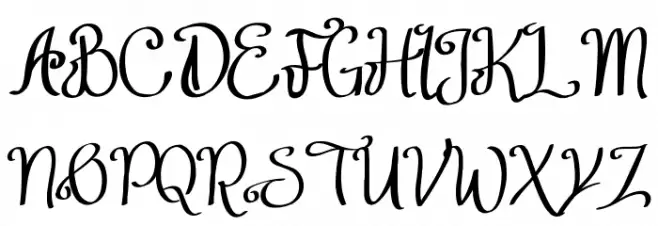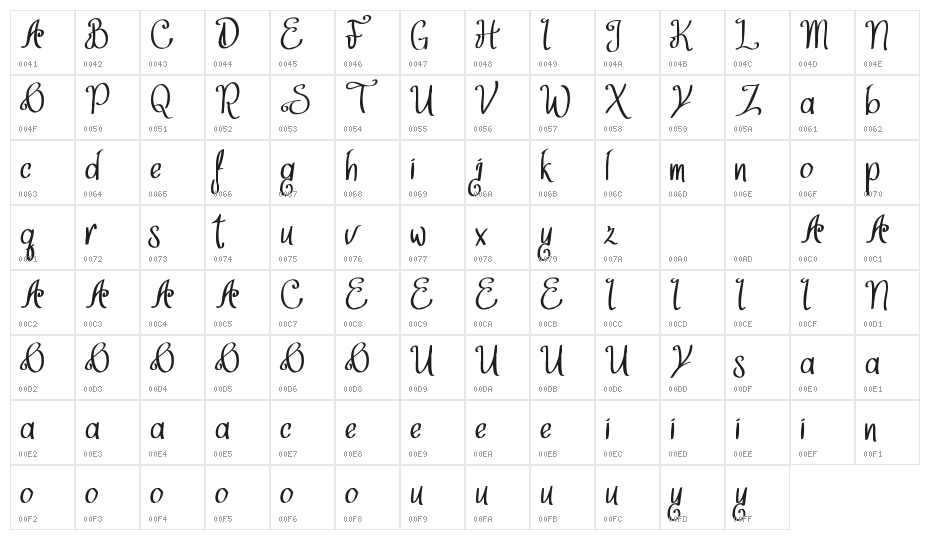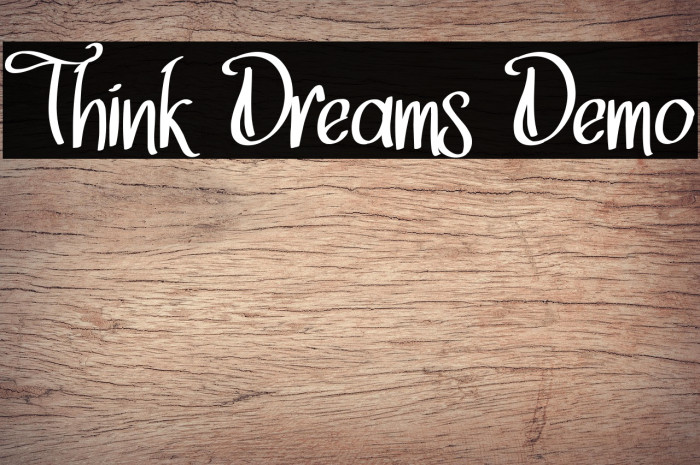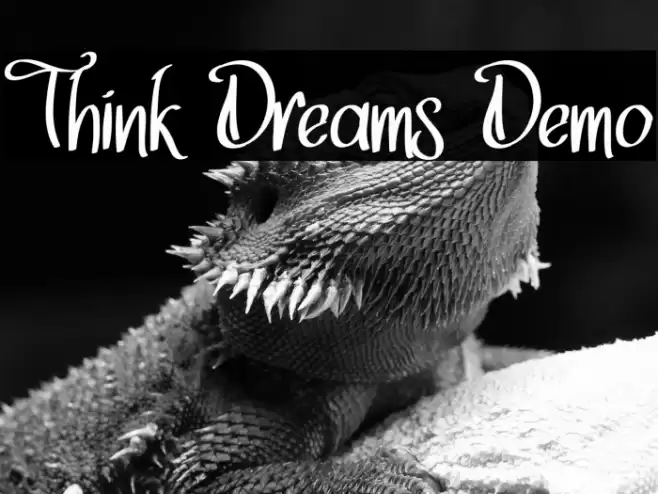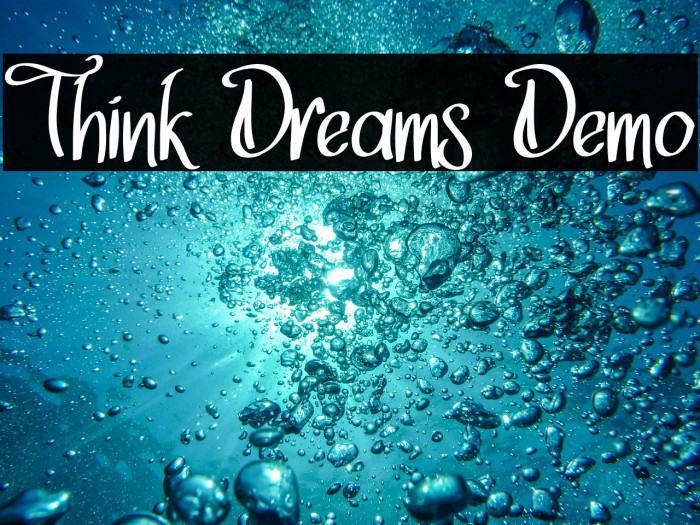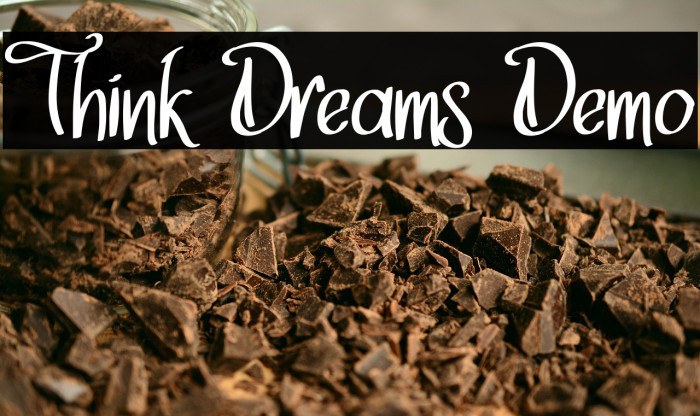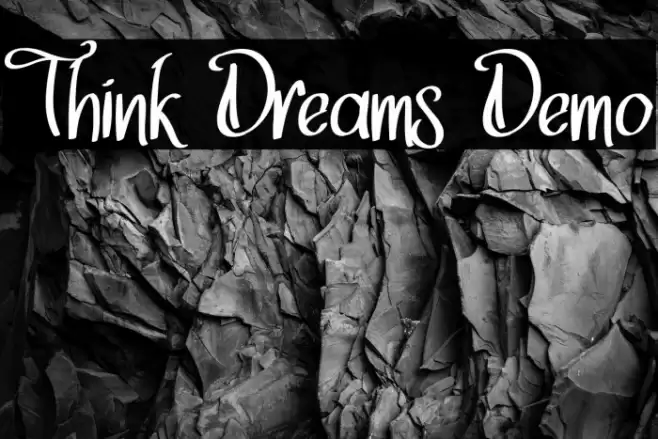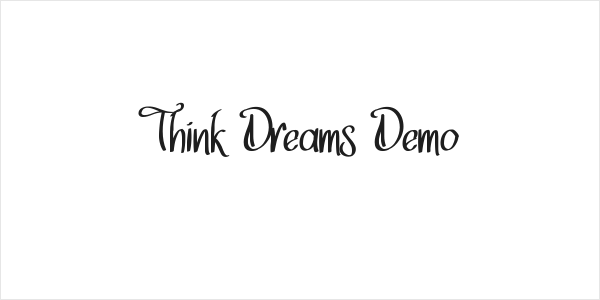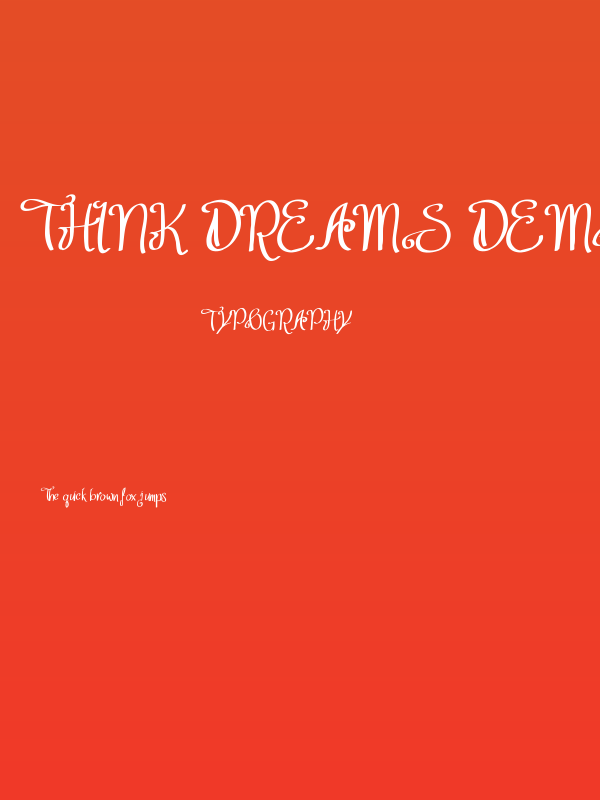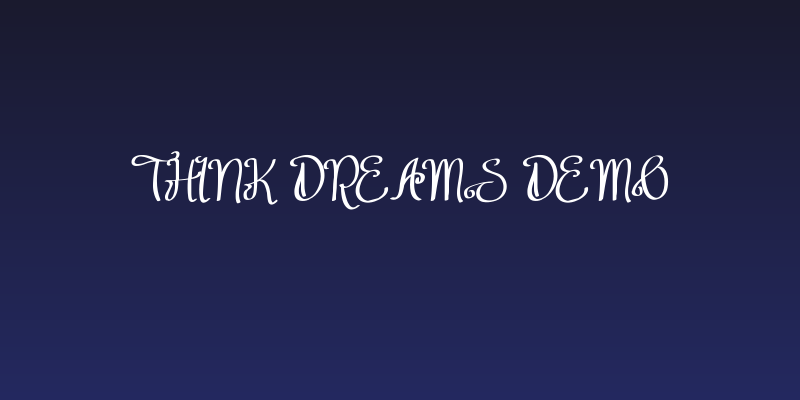
Think Dreams Demo Font
Think Dreams Demo Description
This font features a whimsical and artistic style, characterized by its flowing, cursive-like letterforms. The uppercase and lowercase letters are designed with a playful flair, incorporating loops and swirls that add a sense of movement and creativity. The strokes vary in thickness, providing a dynamic contrast that enhances its decorative appeal. The font maintains a consistent baseline, yet each character exhibits unique embellishments, making it visually engaging. Its overall appearance is both elegant and fun, suitable for projects that require a touch of personality and artistic expression.